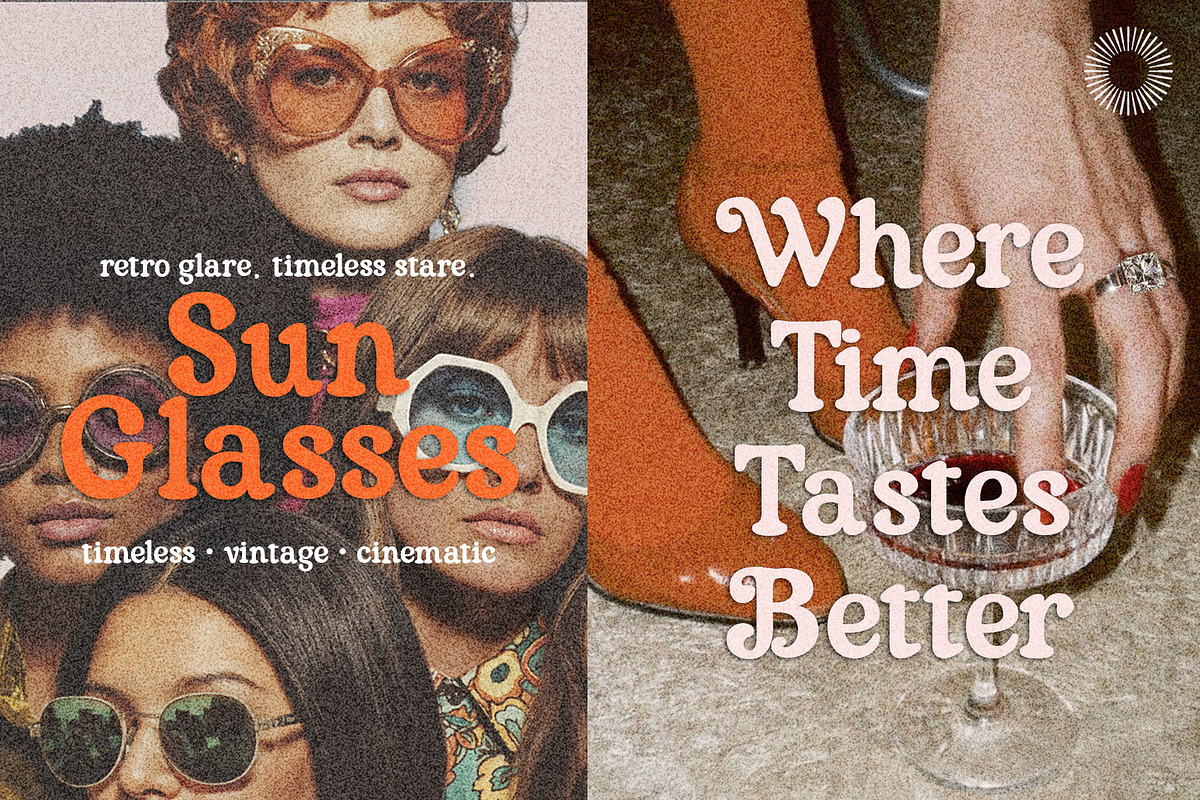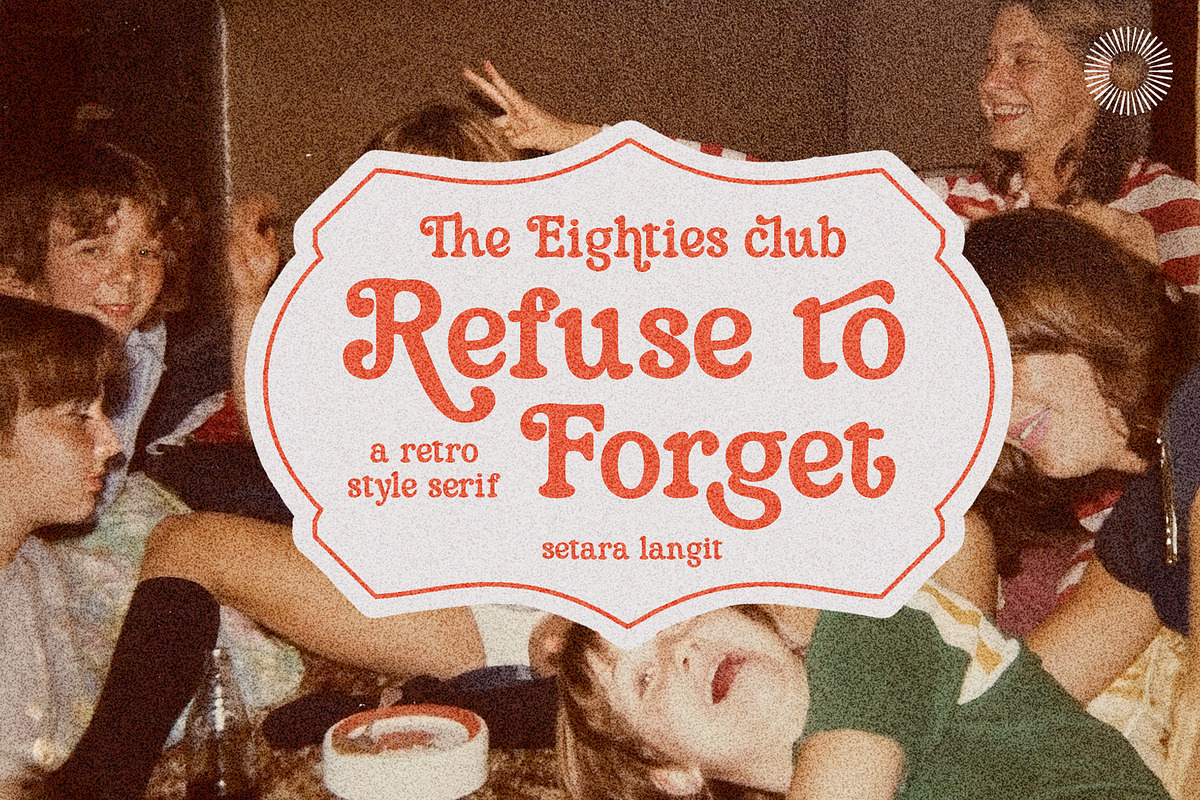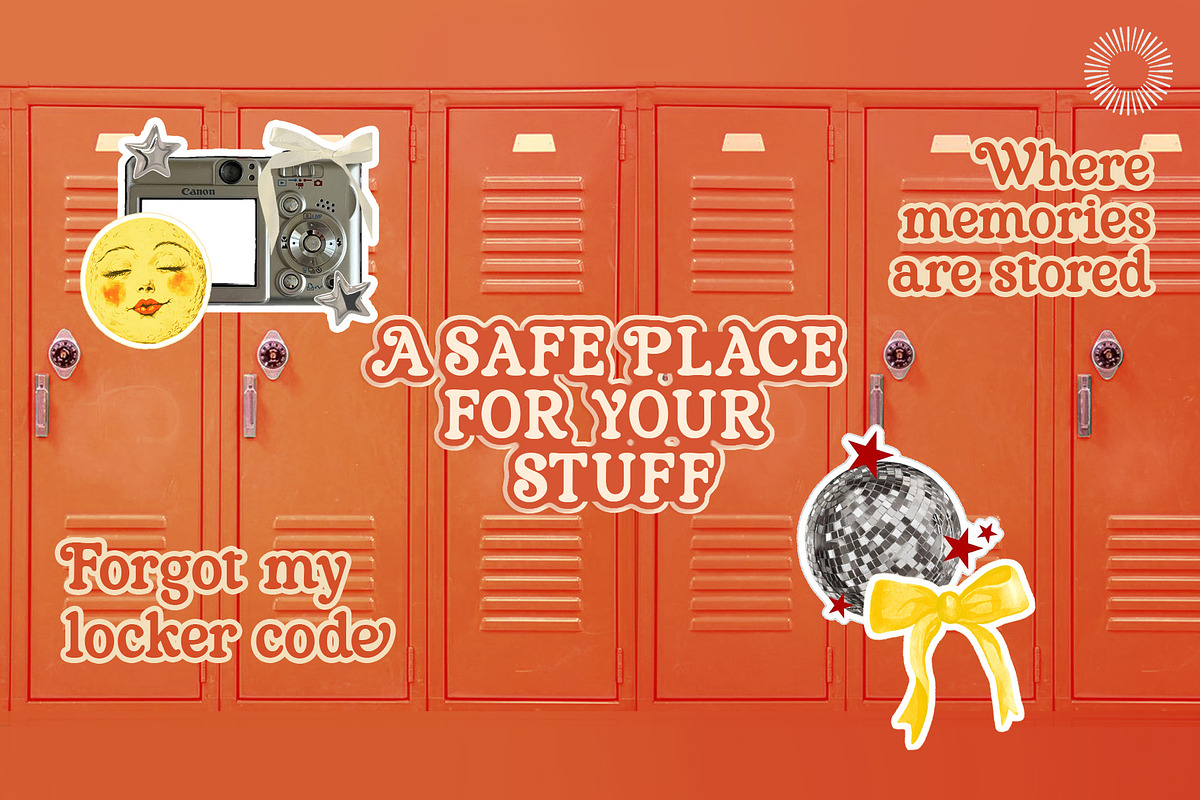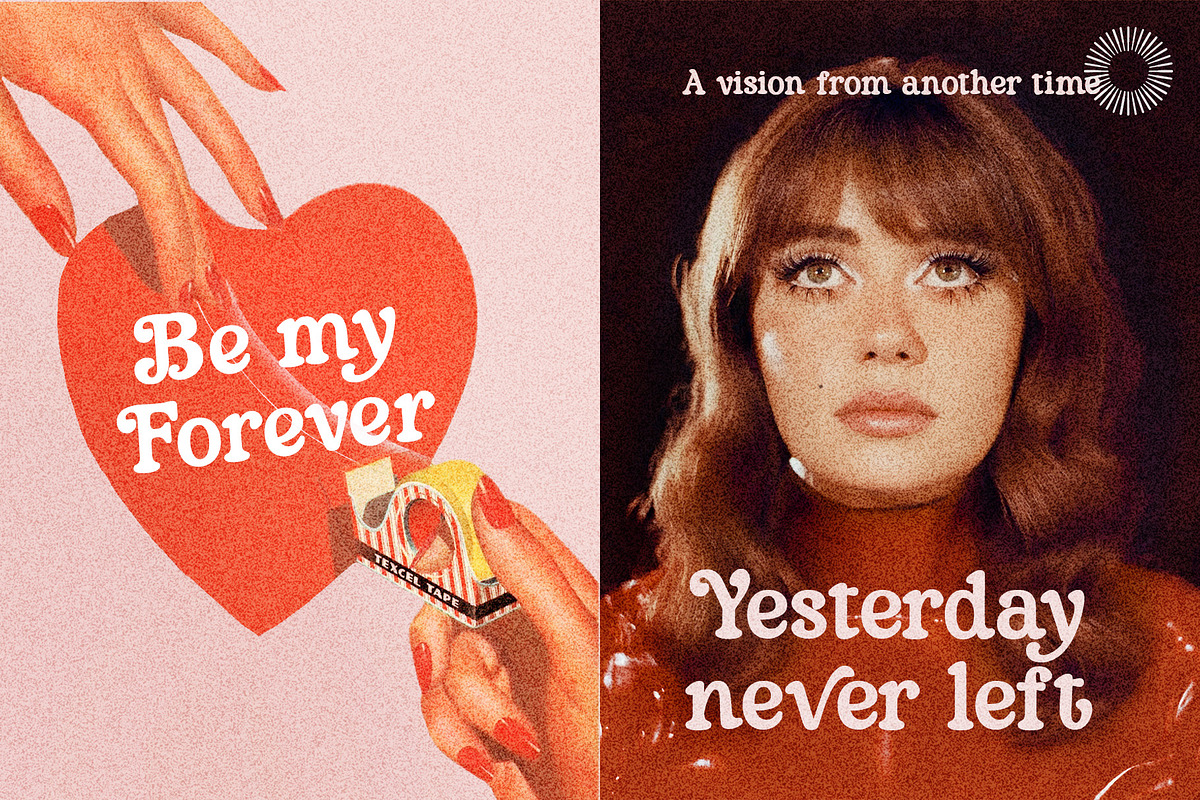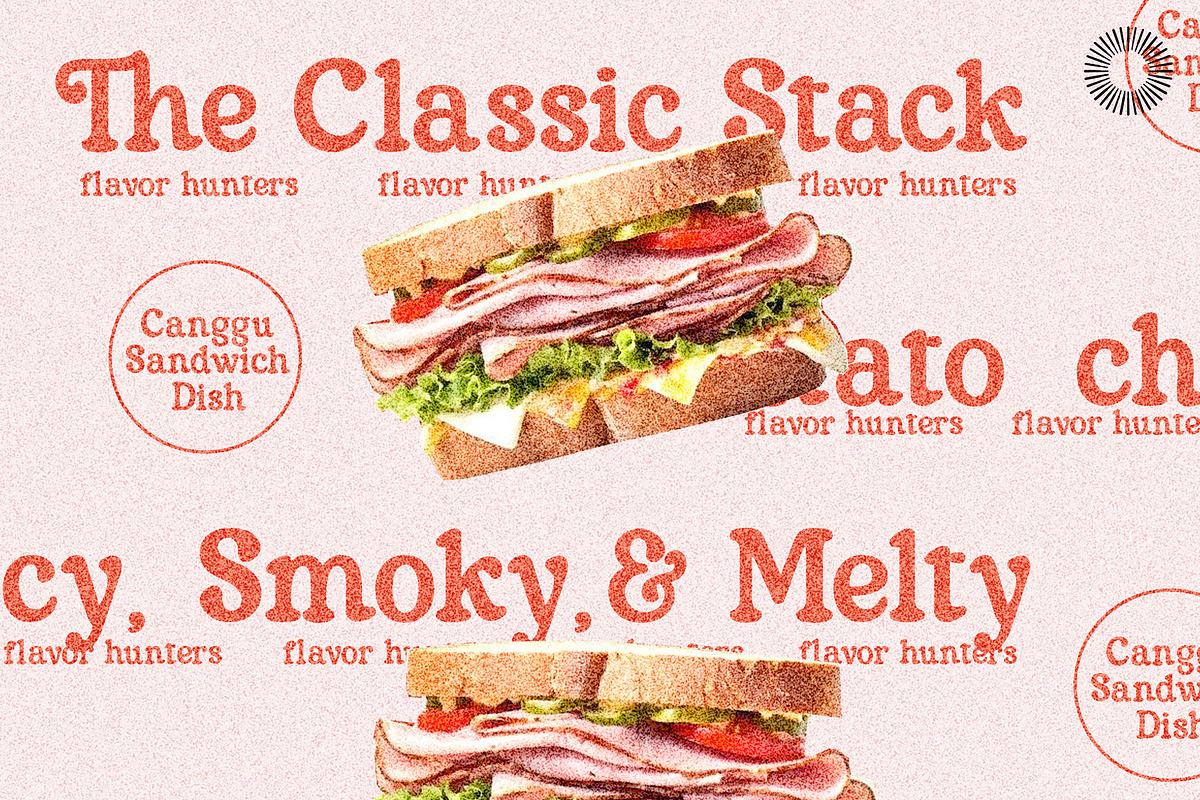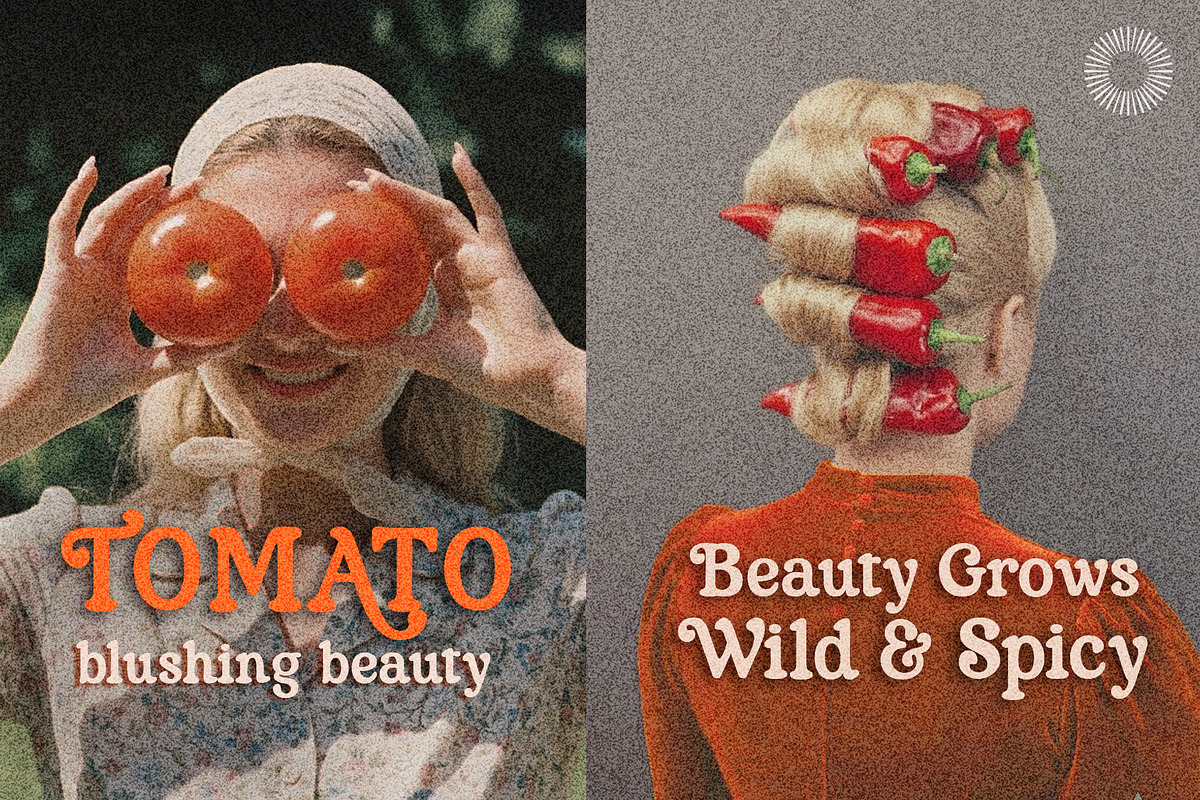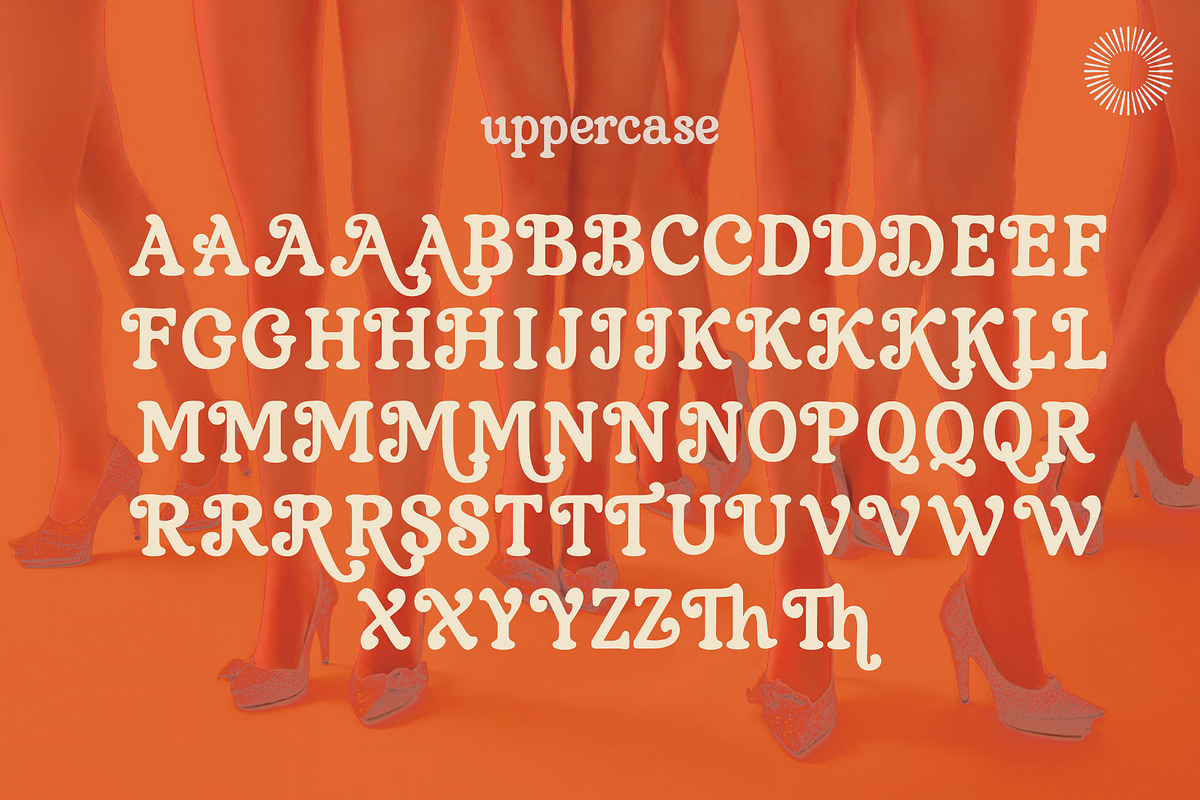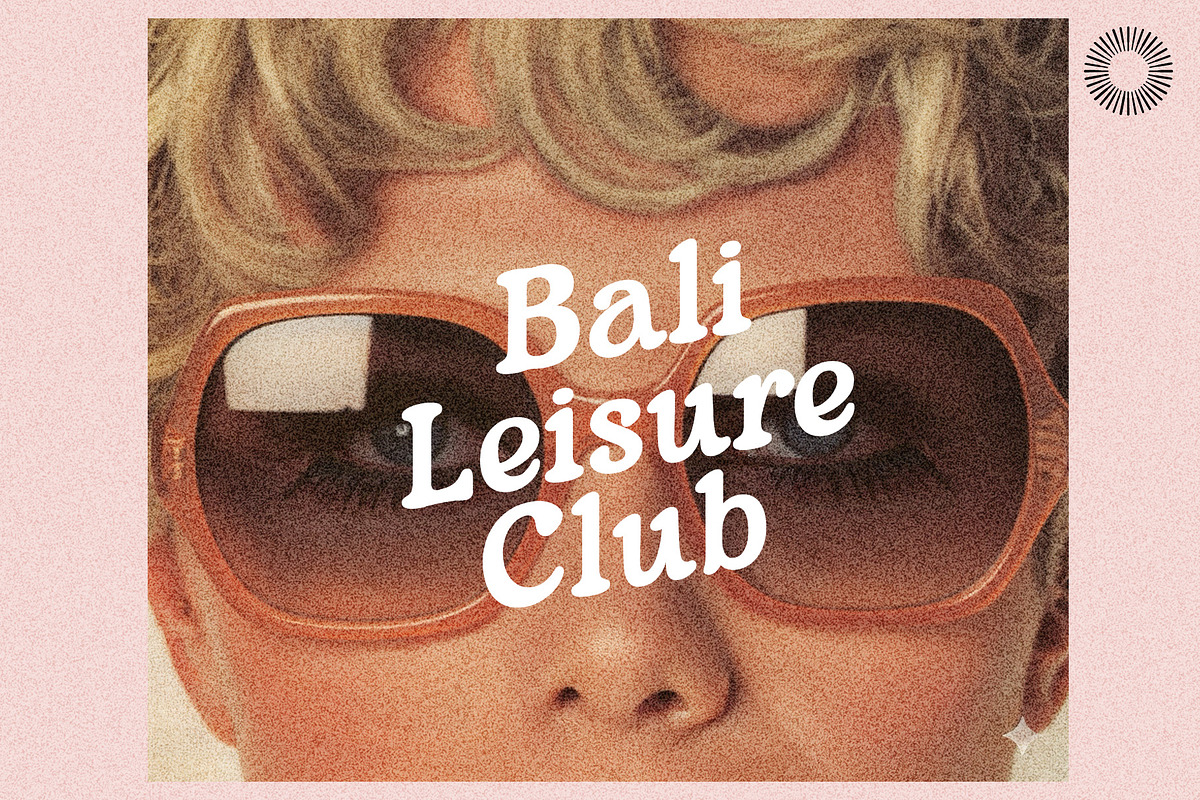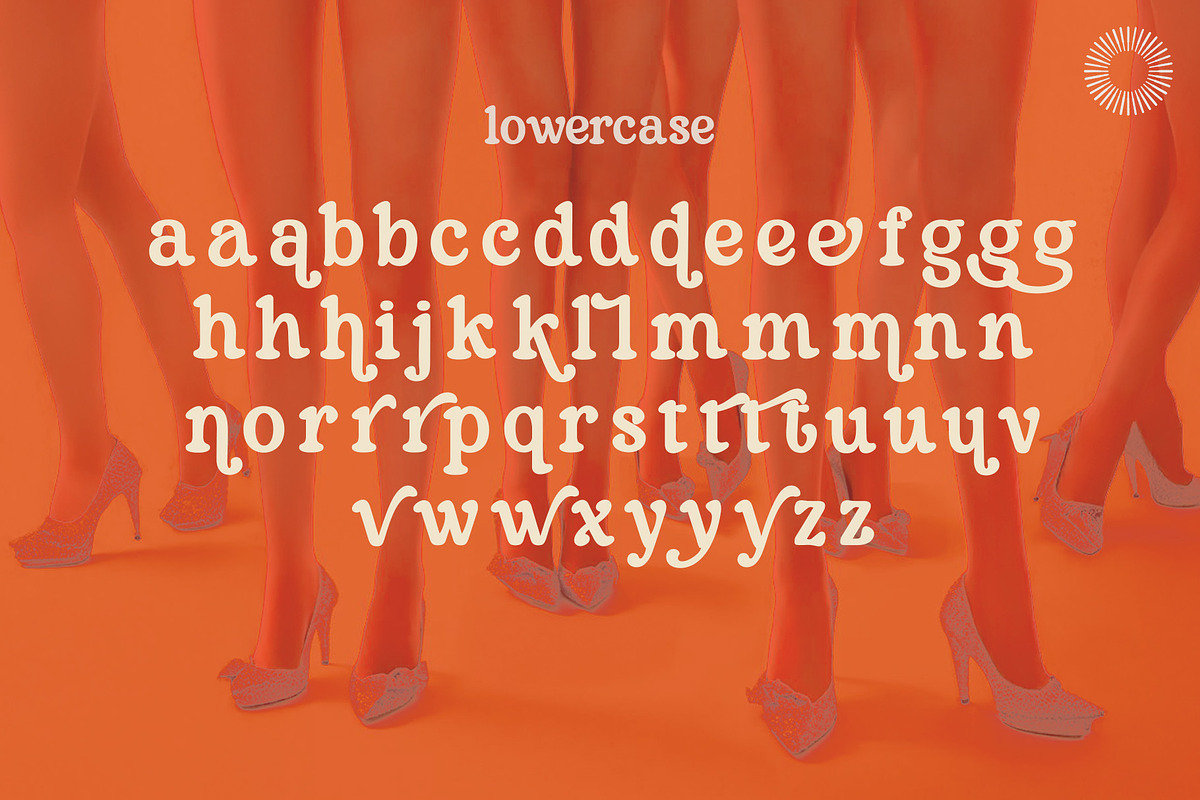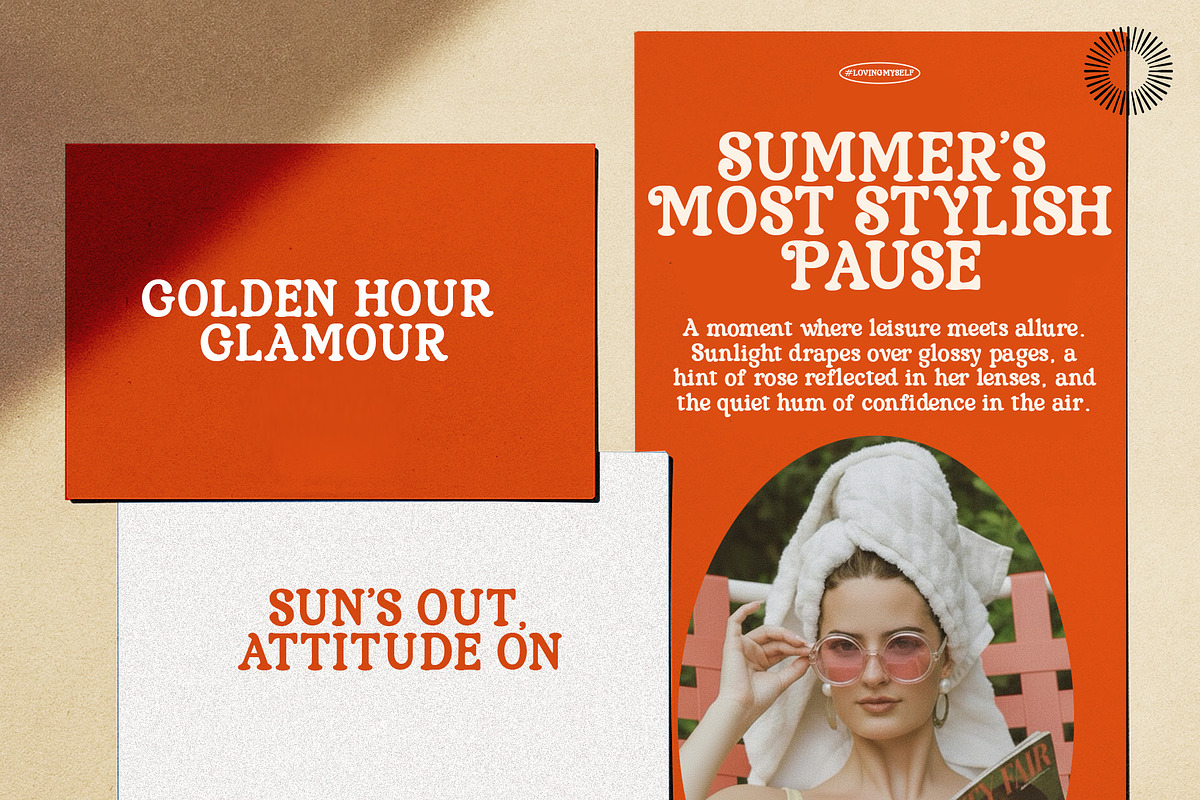
Refuse to Forget | Nostalgic Serif
This serif carries the kind of nostalgia that sneaks up on you. “Refuse to Forget” combines soft curves and subtle quirks that feel like memories caught on film. It’s warm, approachable, and has just enough retro flavor to make things feel personal.
The letters have an easy flow that makes the font look nostalgic without feeling dated. It’s gentle, expressive, and ready for anything that needs a touch of emotion — from posters to branding to storytelling projects.